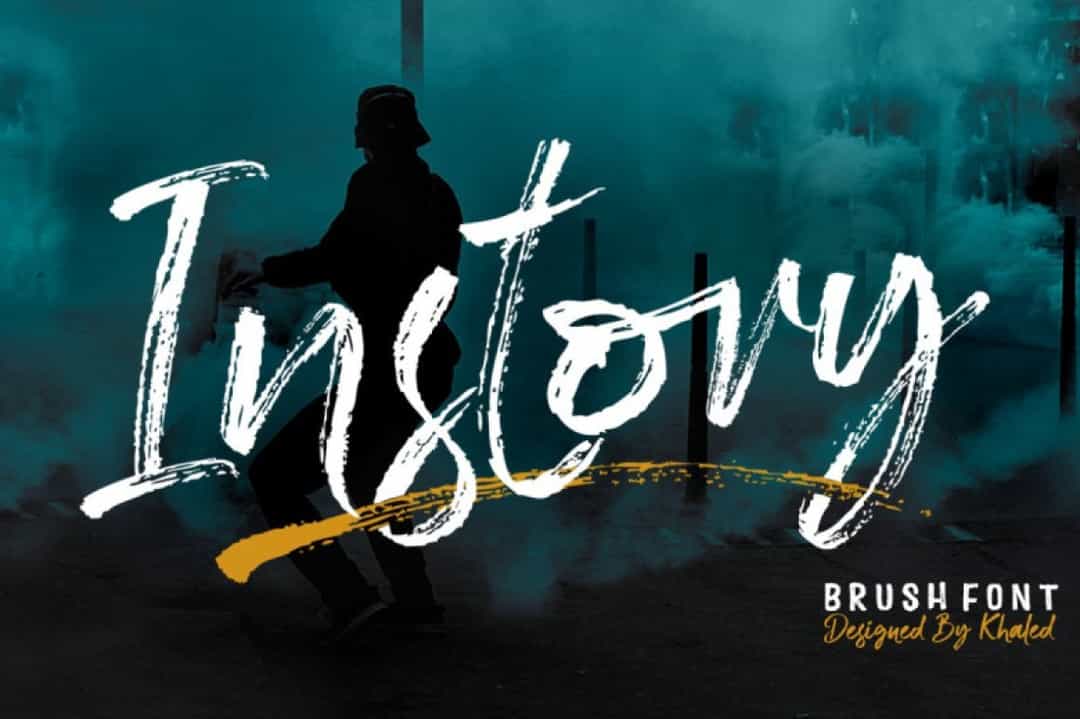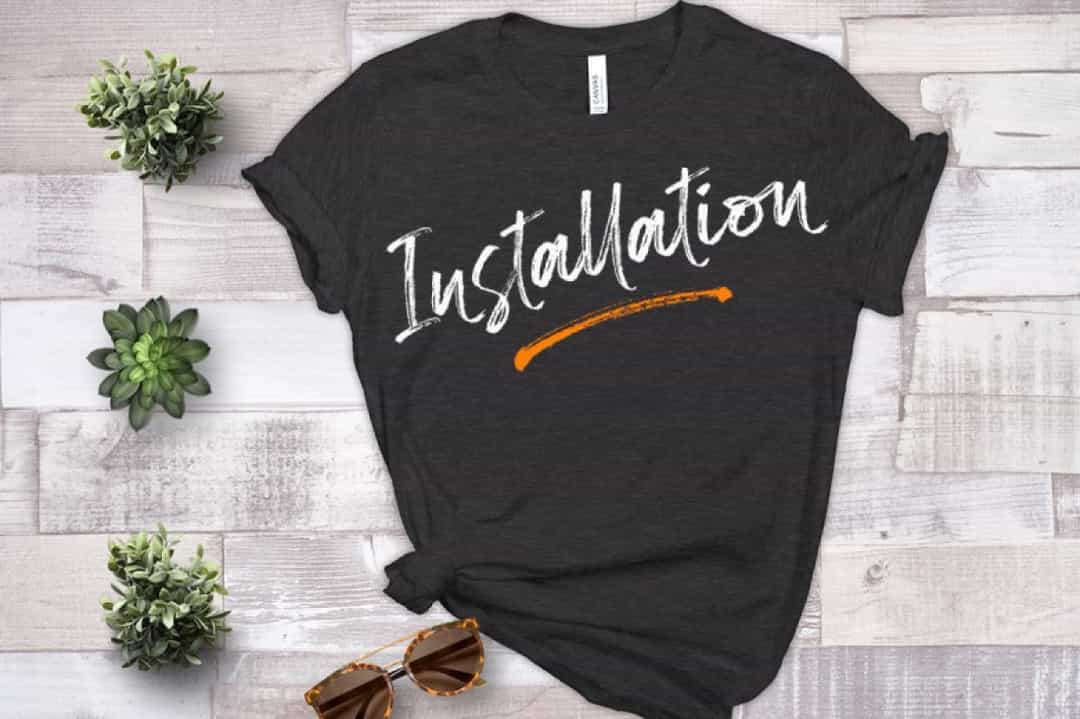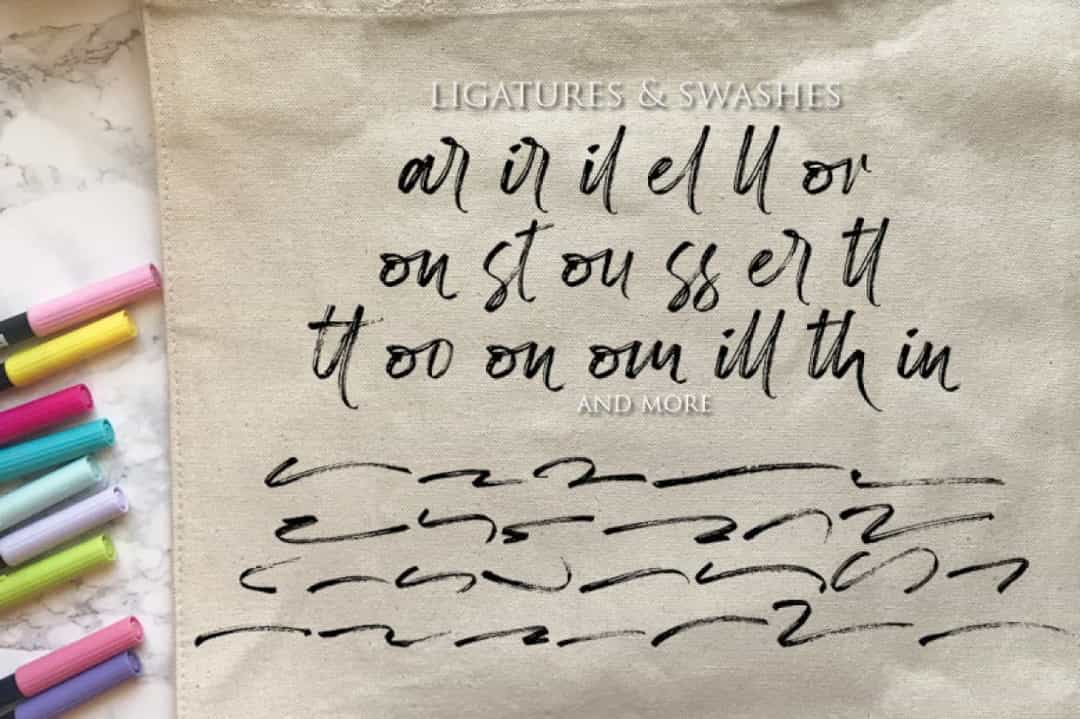
Instory is a brand-new modern brush typeface featuring an irregular baseline for an innovative approach to design. Handmade natural, it can be found on invitations, clothing books, stationary designs, T-shirt logos and posters among many other titles; perfect for use in invitations, clothing books, branding logos T-shirts posters packaging designs posters T-shirts posters T-shirt posters packaging designs etc. Plus it includes upper case letters along with multilingual support numbers punctuation marks symbols even swash!